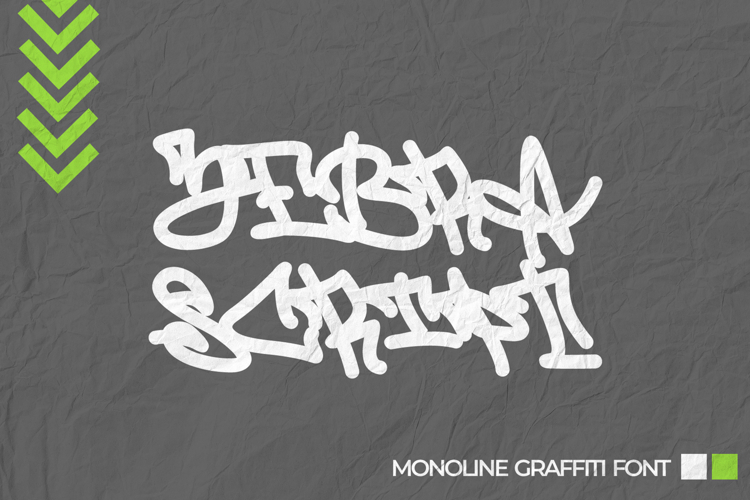
Zebra Script - Monoline Graffiti Font
Unleash the untamed spirit of the streets with Zebra Script – the monoline graffiti font that combines elegance with urban edge. More than just a font, Zebra Script is a bold statement of style and attitude, perfect for adding a touch of rebellion to your designs.
🏙️ Urban Elegance: With its sleek lines and graceful curves, Zebra Script brings a touch of sophistication to the raw energy of graffiti. Each letter exudes a sense of style and refinement, making it the perfect choice for projects that demand both elegance and attitude.
🎨 Versatile Creativity: From posters to branding, Zebra Script empowers you to explore your creative potential. Its monoline style adds a modern twist to traditional graffiti, allowing you to create designs that are both timeless and on-trend.
🔥 Make Your Mark: Leave a lasting impression with Zebra Script. Its unique blend of elegance and urban edge ensures your message stands out from the crowd, commanding attention and sparking conversations wherever it's seen.
🌟 Youthful Appeal: Embrace the rebellious spirit of street culture with Zebra Script. Its monoline graffiti style resonates with young, creative audiences, making it the perfect choice for projects aimed at capturing the essence of urban youth culture.
💡 Endless Possibilities: With Zebra Script, the possibilities are limitless. Whether you're designing logos, signage, or apparel, this font gives you the freedom to express yourself and bring your ideas to life in stunning detail.
🌆 Cityscape Inspiration: Inspired by the dynamic streets of the city, Zebra Script captures the energy and vibrancy of urban life. Its elegant yet edgy style reflects the eclectic mix of influences found in graffiti culture, infusing your designs with an authentic urban vibe.
Transform your designs into urban masterpieces with Zebra Script – where elegance meets attitude, and creativity knows no bounds. It's time to make your mark on the world with this best-selling monoline graffiti font leading the way.